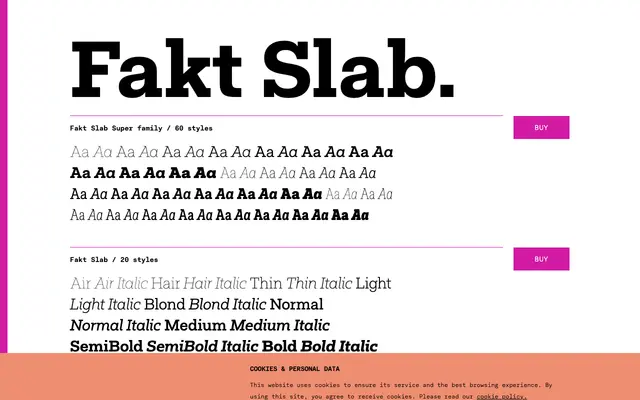
Fakt Slab
A 60-style slab serif superfamily spanning three widths and ten weights, designed as a structured companion to the Fakt sans family.
Sixty styles spread across standard, SemiCondensed and Condensed widths, each running from Air to Black with matching italics. The family carries an extensive set of OpenType features including small caps, oldstyle figures, tabular figures, stylistic alternates and a historical long-s, making it well suited to complex editorial and publication work. The breadth of the weight range, from the extreme lightness of Air and Hair through to Black, gives it considerable versatility across both text and display applications.
Fakt Slab is a slab serif companion to a geometric sans, with unbracketed serifs and a structured, even stroke weight characteristic of geometric slab designs.